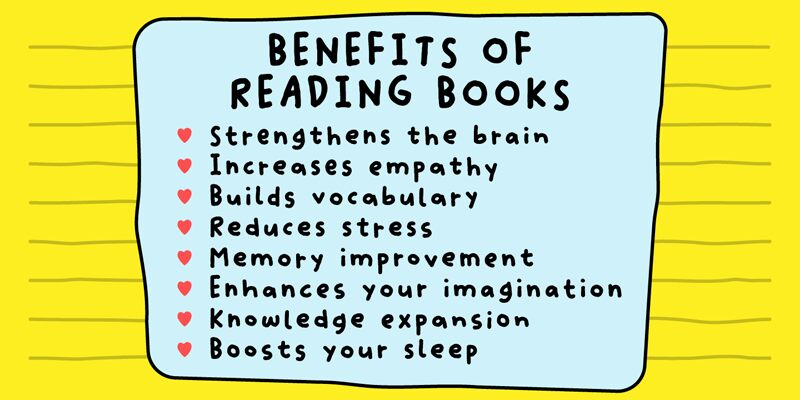
Quote Note DEMO Regular
Quote Note, a casual handwritten font designed by Pizzadude, brings a touch of warmth and authenticity to your projects. With its playful curves and charming imperfections, this font is perfect for adding a personal touch to greeting cards, invitations, or handwritten notes. Its versatility makes it suitable for various projects including logo designs that aim to evoke a friendly and approachable vibe. Whether you're working on a scrapbooking project or creating social media graphics, Quote Note's casual handwritten style is sure to make your words stand out with its unique charm.